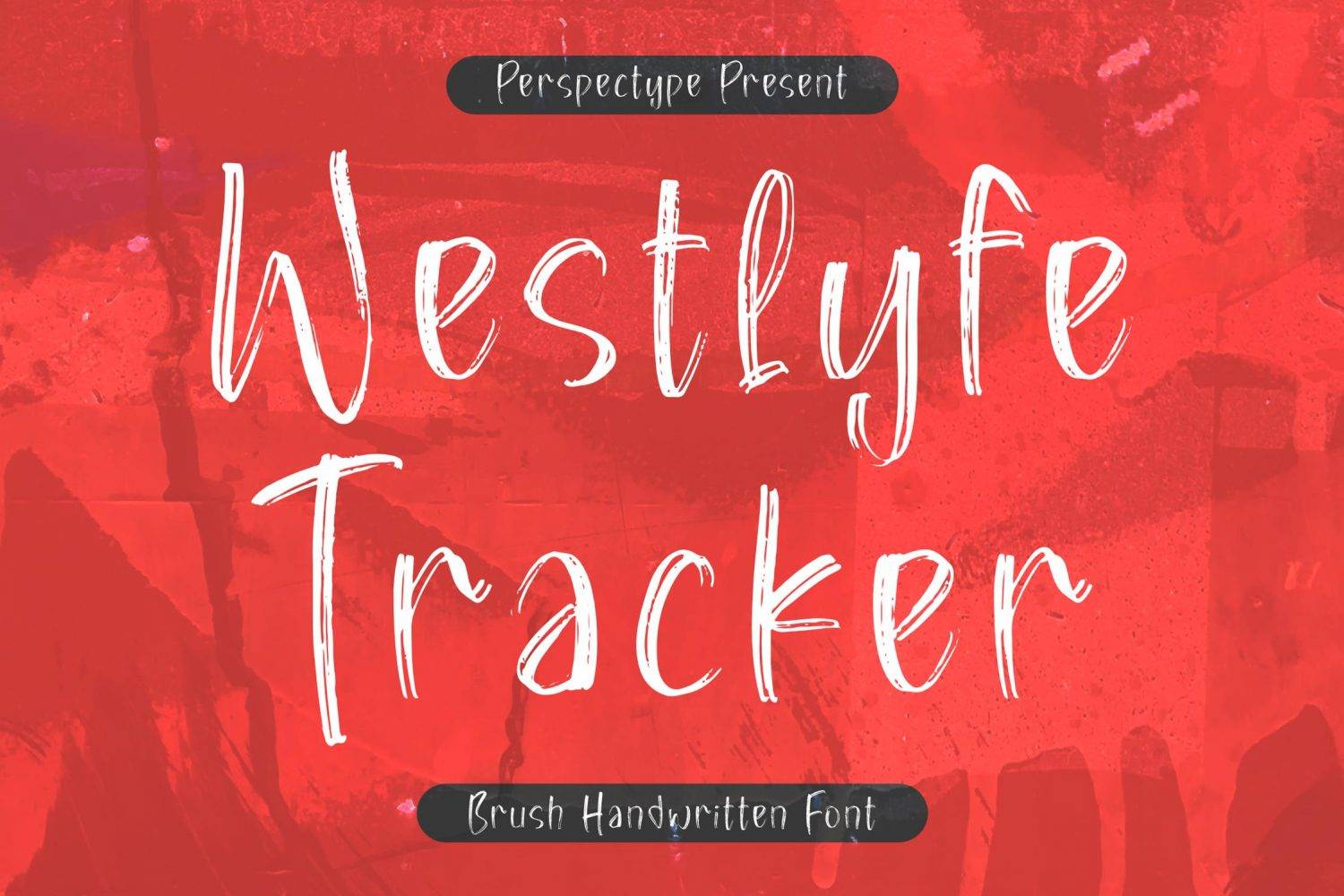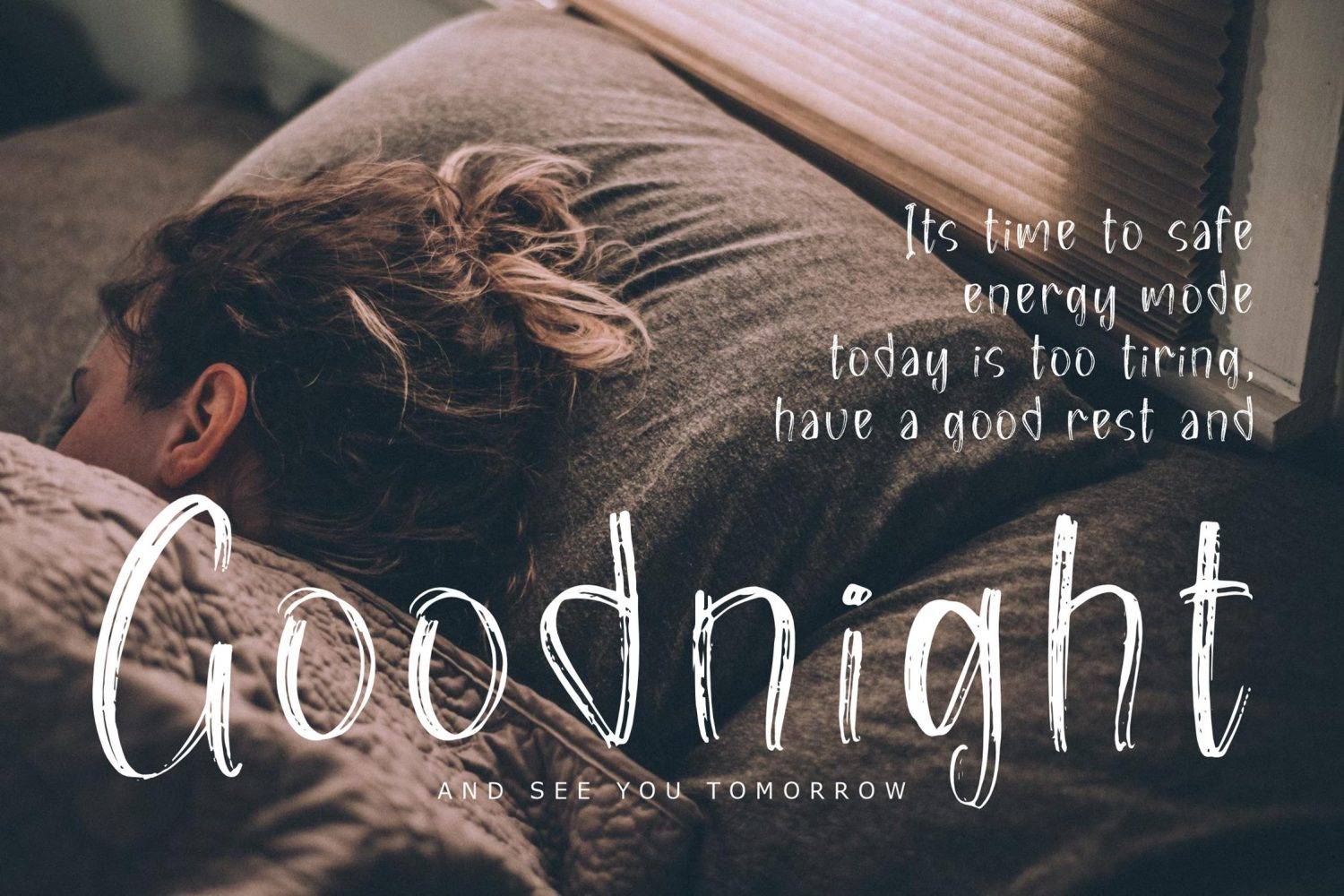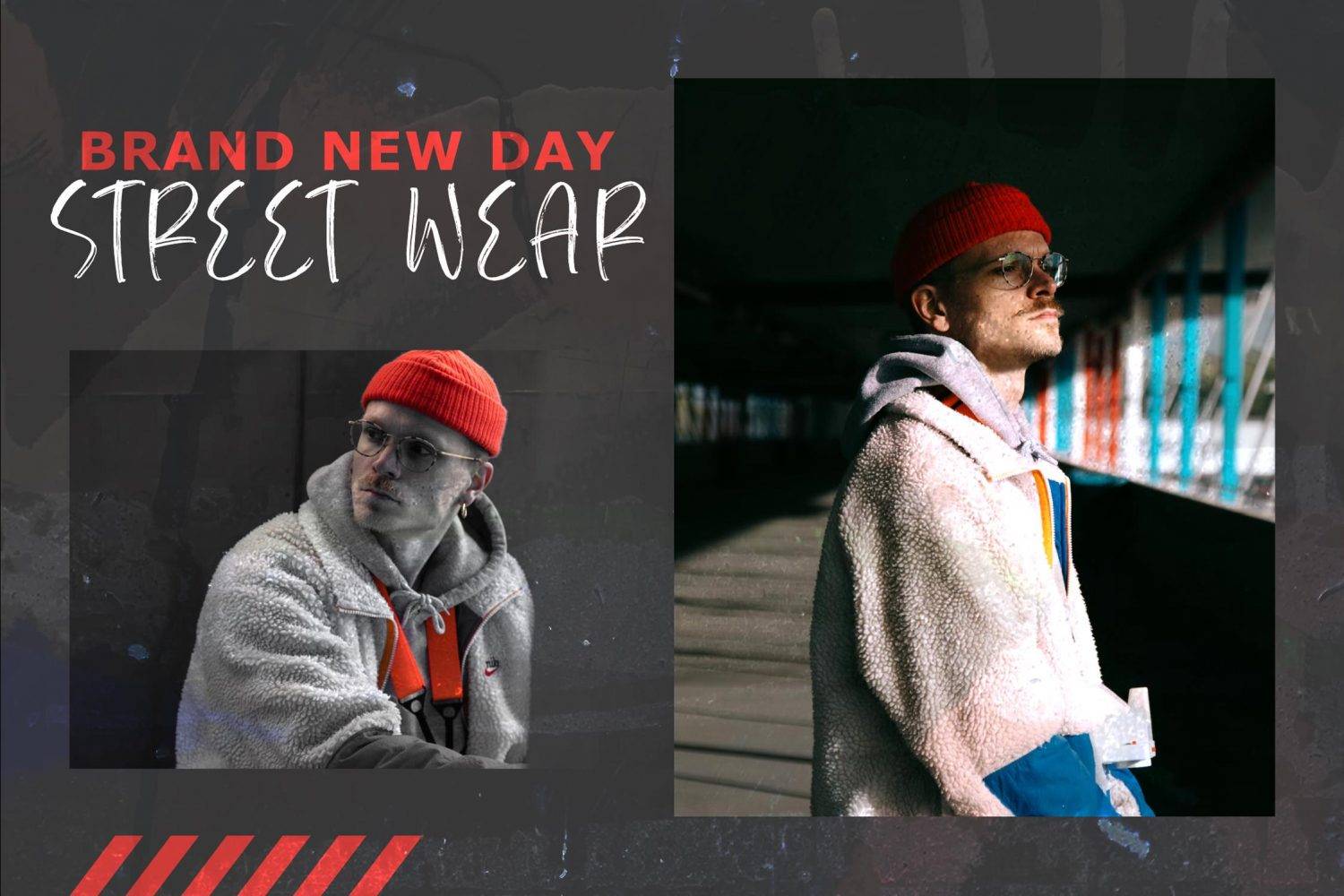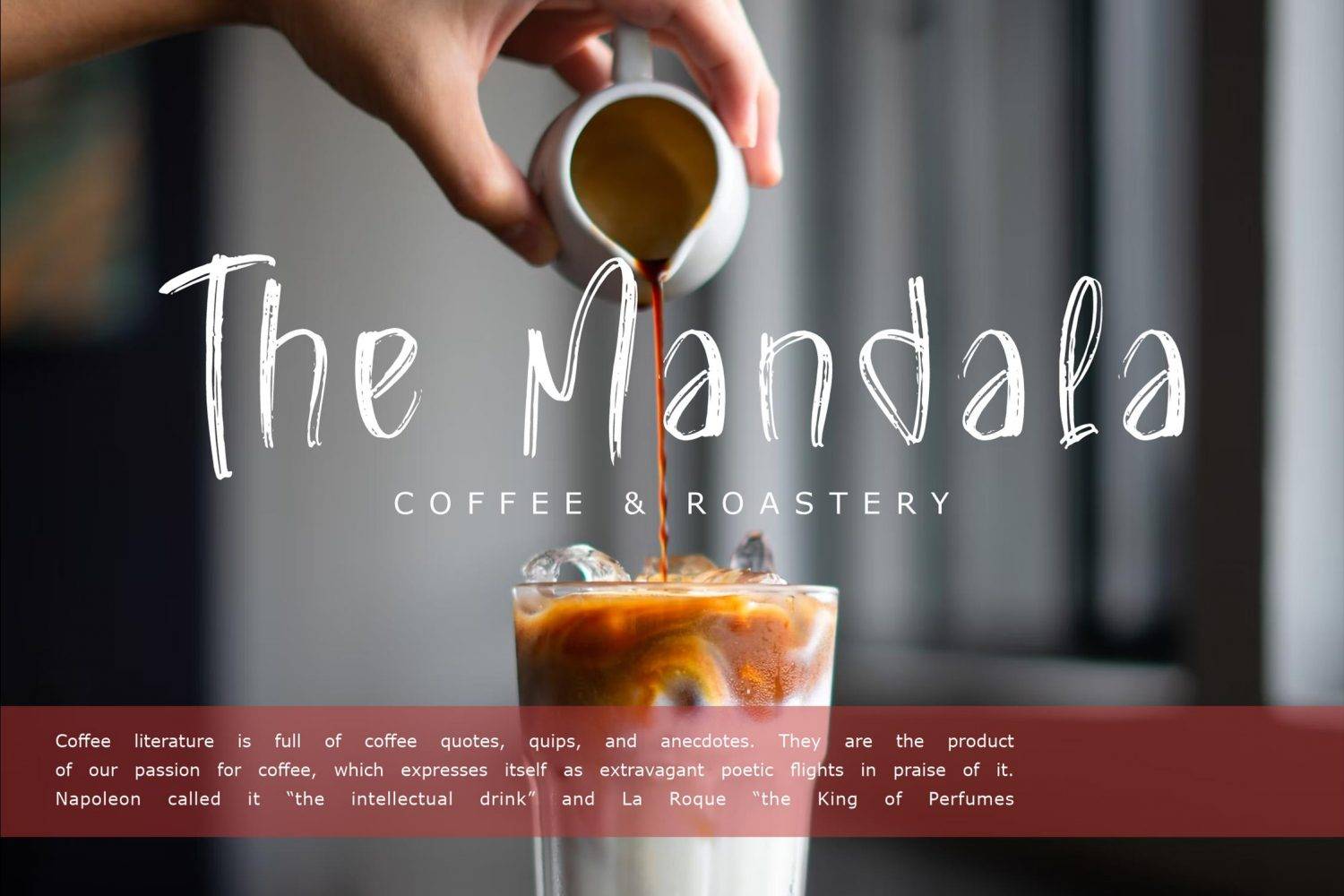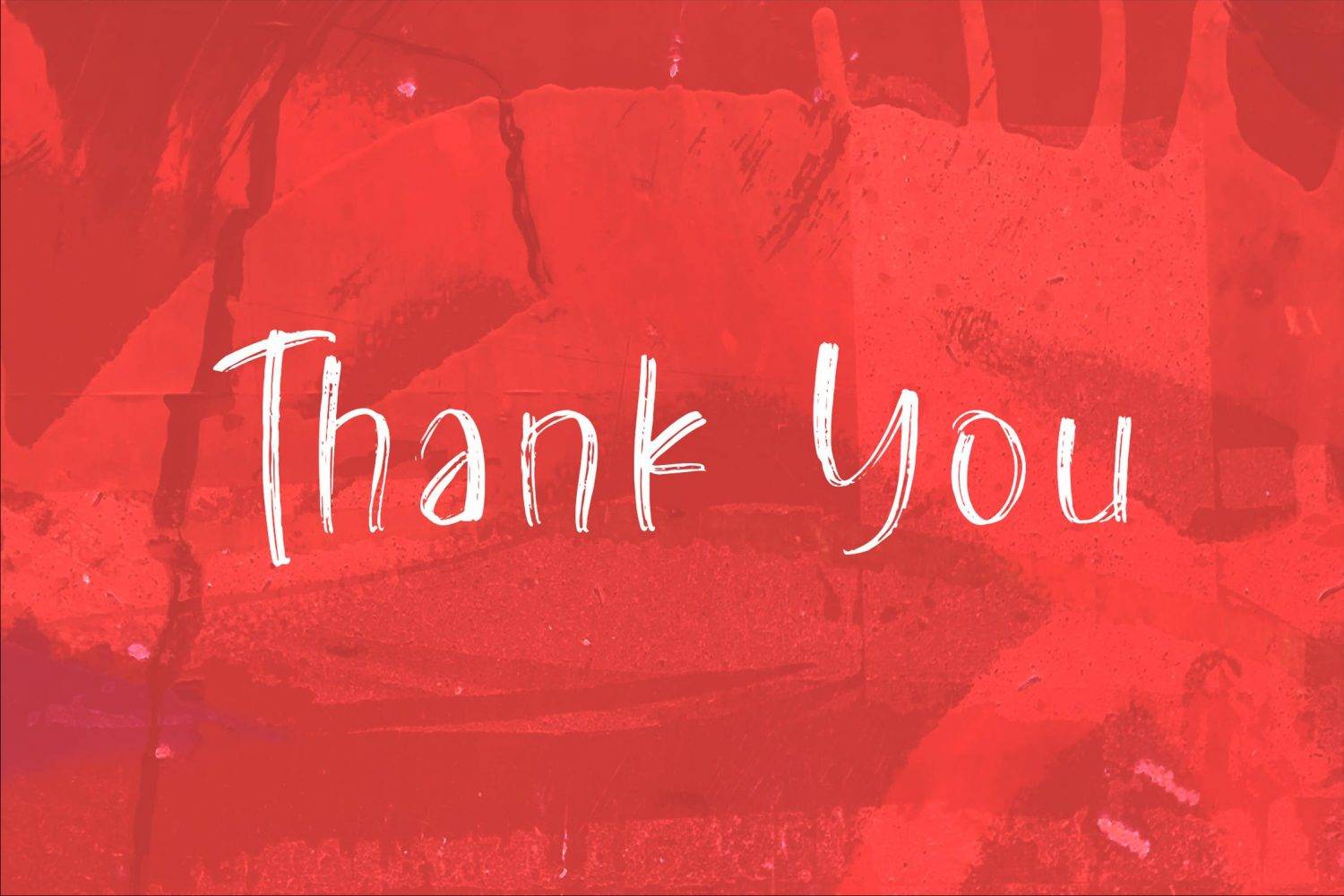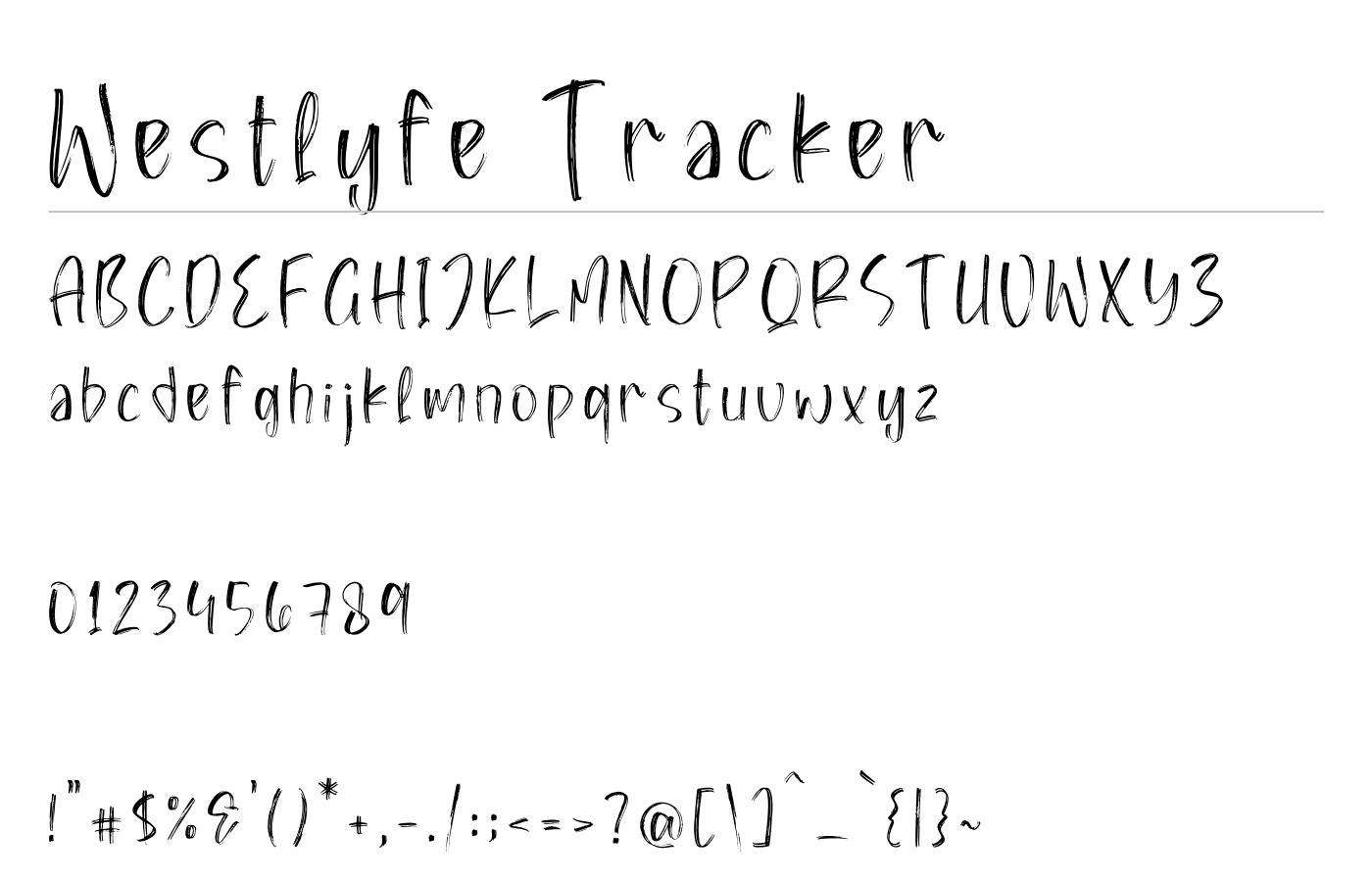
Westlyfe Tracker is a playful, hand-drawn script font with a tall, narrow structure and a lively, textured stroke that mimics a rough brush or marker. Its casual and organic feel makes it perfect for creative projects, branding with a personal touch, or eye-catching headlines where a friendly, informal vibe is desired. This font works well in designs that aim to convey authenticity, creativity, and approachable energy.
Westlyfe Tracker Font
About Westlyfe Tracker Font